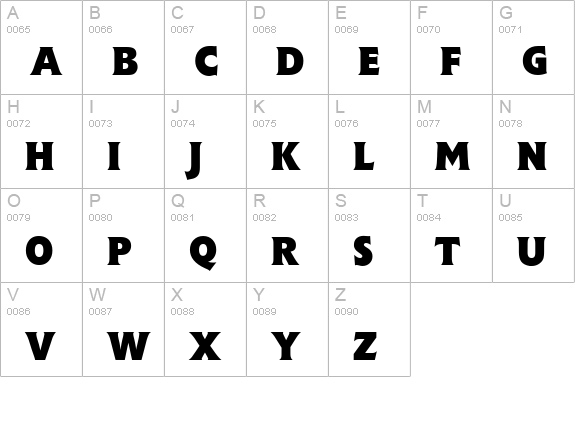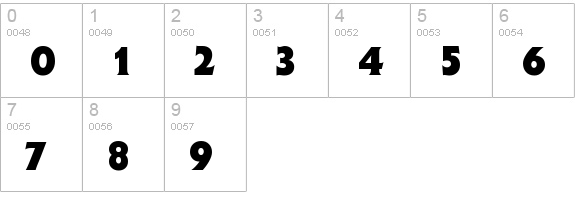
Fleming-Heavy-Regular is a heavy, high-impact variant in the Fleming typeface family \xE2\x80\x94 well suited to high-impact headlines, posters, and display advertising.
Fleming Heavy Regular font exudes a bold and commanding presence with its strong and sturdy letterforms. This versatile typeface strikes the perfect balance between classic elegance and modern sophistication, making it ideal for a wide range of design projects. Whether used for headlines, logos, or body text, Fleming Heavy Regular commands attention and leaves a lasting impression. One of the most appealing aspects of Fleming Heavy Regular is that it is completely free to download at FontsMarket.com. This means that designers and creatives can easily access this high-quality font without any cost, making it a valuable addition to any typographic toolkit. With its timeless design and exceptional legibility, Fleming Heavy Regular is sure to elevate any project it is used in. Download it today and experience the power and versatility of this remarkable font.